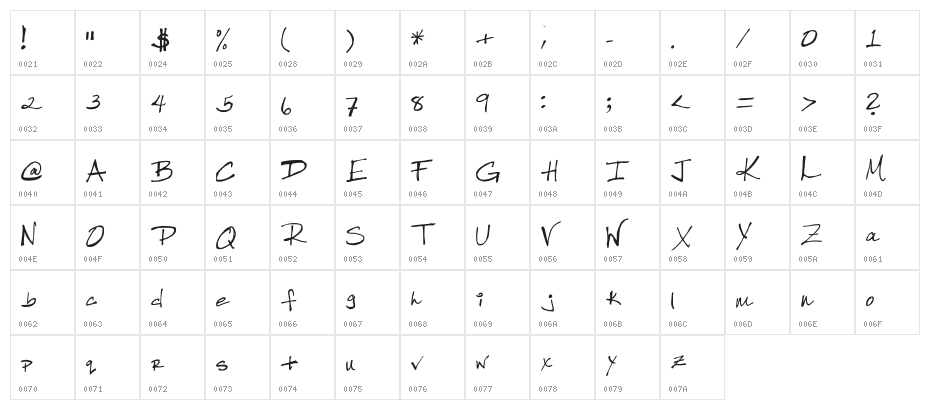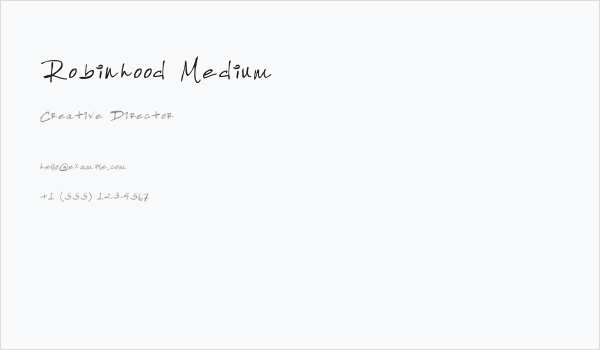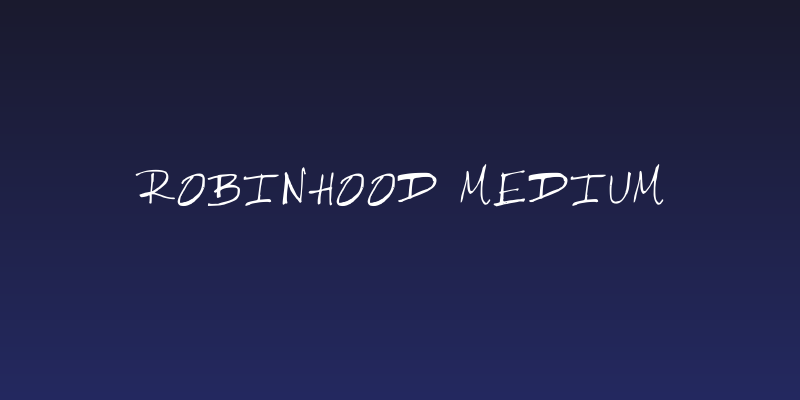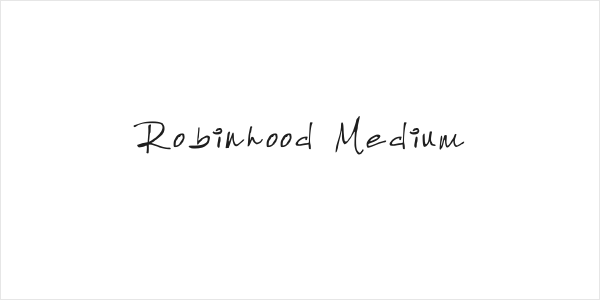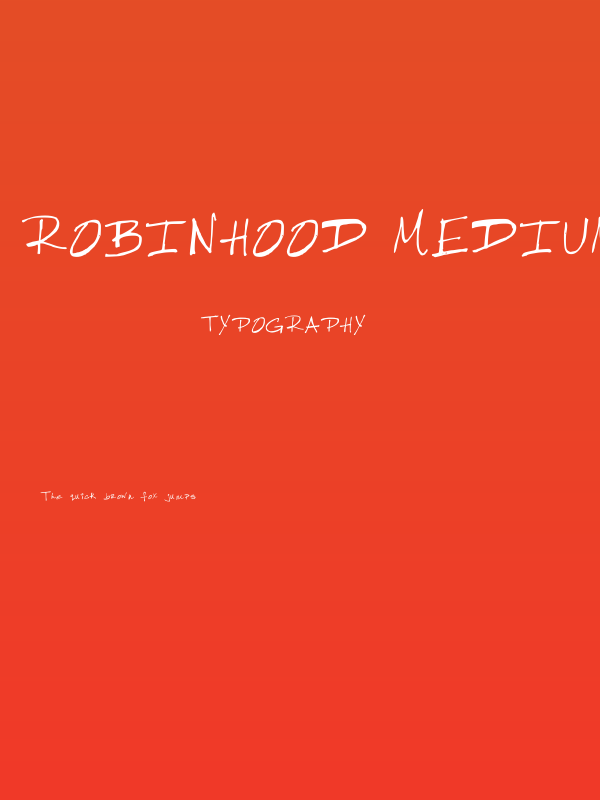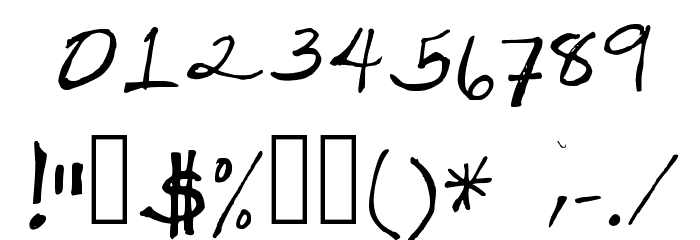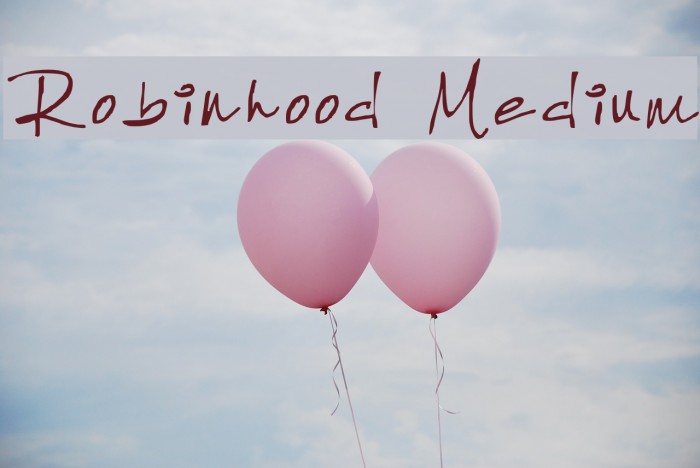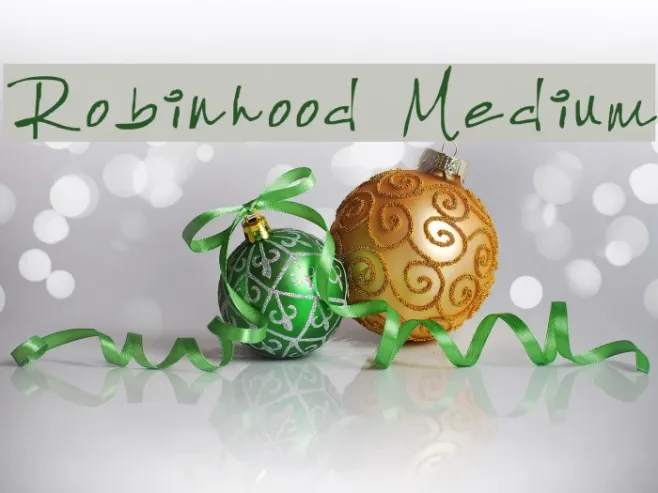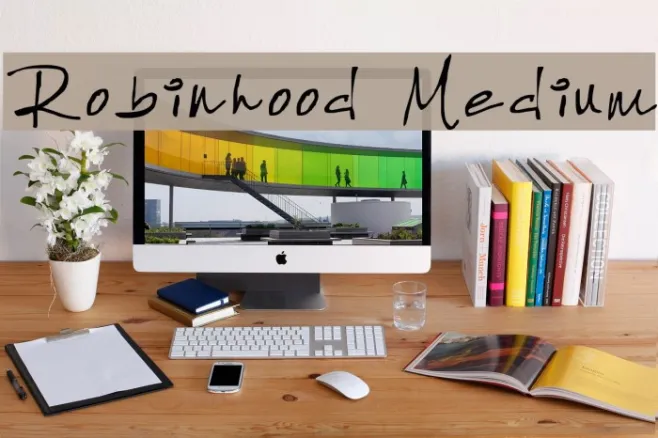
Robinhood Medium Font
Robinhood Medium Description
This font features a casual, handwritten style with a playful and informal appearance. The letters are slightly slanted, giving it a dynamic and energetic feel. The strokes are uneven, mimicking the natural flow of handwriting, which adds a personal touch. The uppercase letters are bold and prominent, while the lowercase letters maintain a consistent style, enhancing readability. The numbers and special characters follow the same handwritten aesthetic, making this font versatile for various creative projects.
| Use Case | Logos, Headlines, Informal Text |
| Proposed Projects | Ideal for greeting cards, personal branding, social media graphics, and informal invitations. |